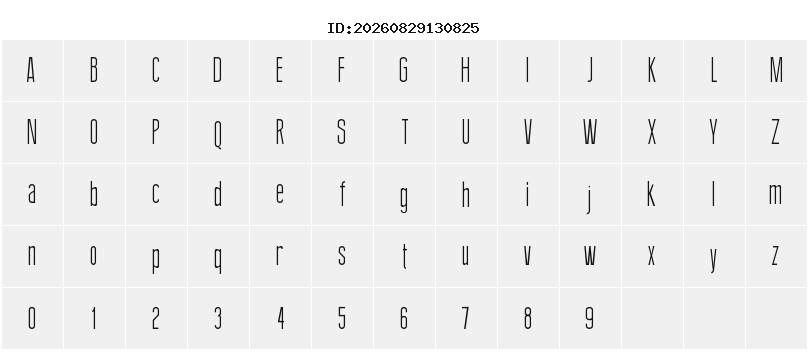
Thin Design Preview
• Font Name: Thin Design
• Full Font Name: Thin Design
• Version: Version 1.00 September 29, 2012, initial release
• Designer: Galdino Otten
About Thin Design.ttf
Thin Design.ttf is a modern, elegant sans-serif font designed for ultimate readability and visual harmony. Perfect for branding, headlines, web design, and print materials.